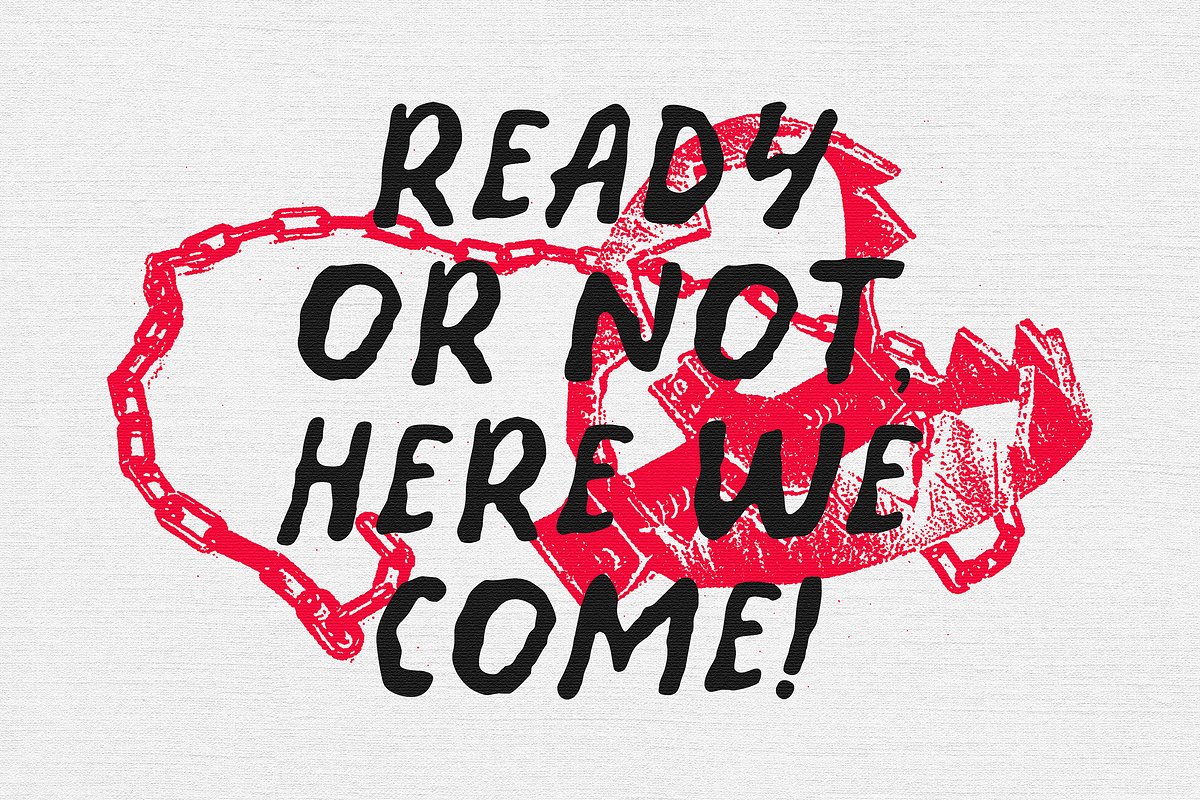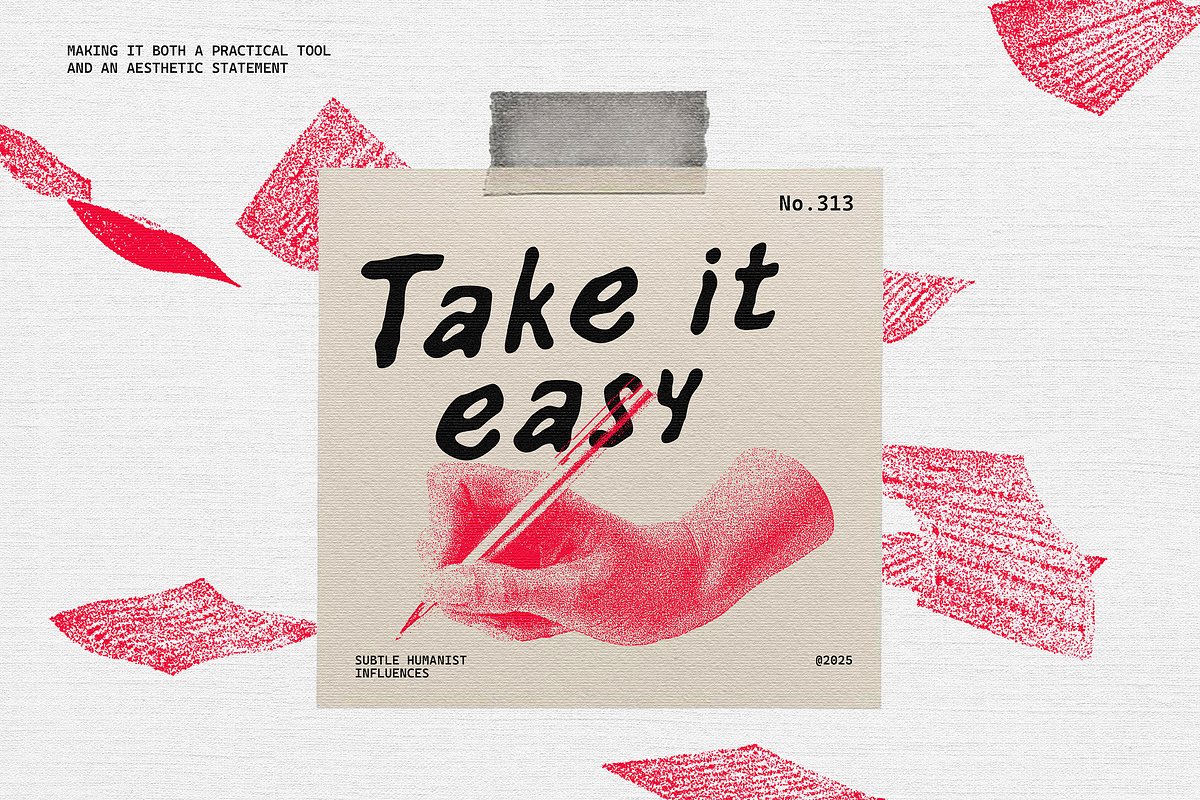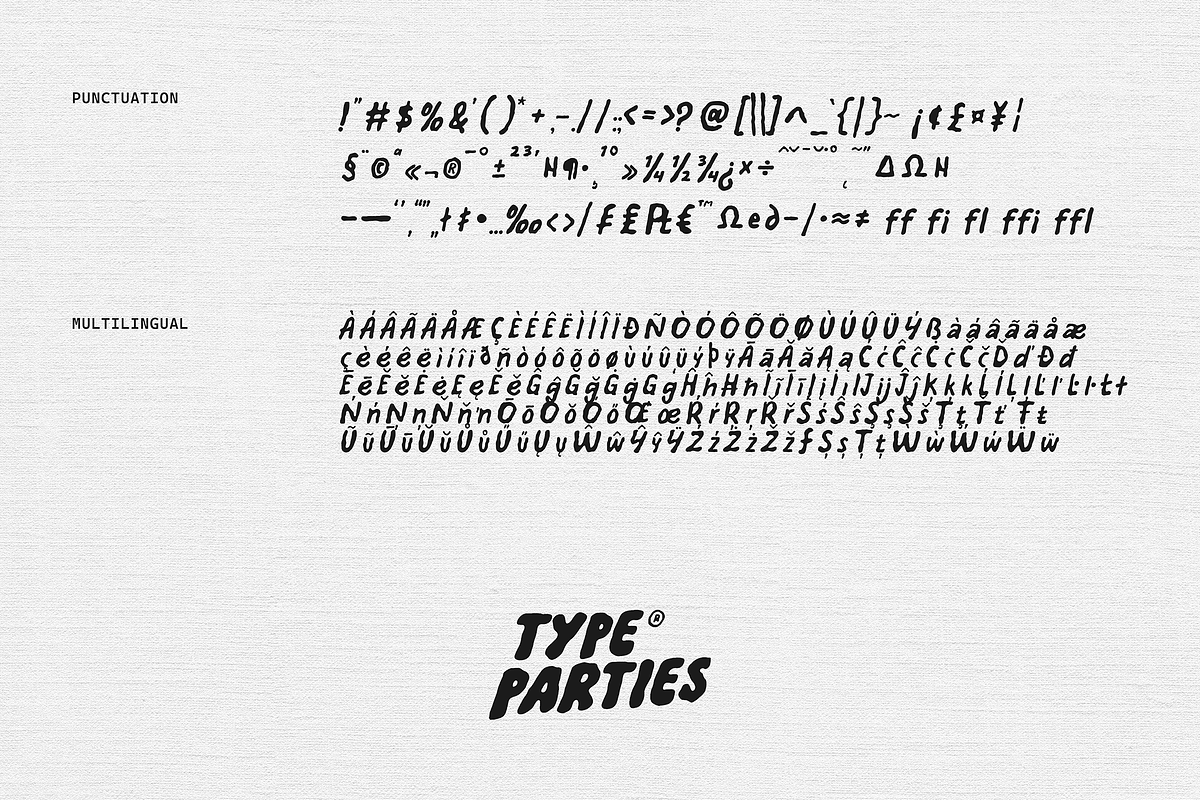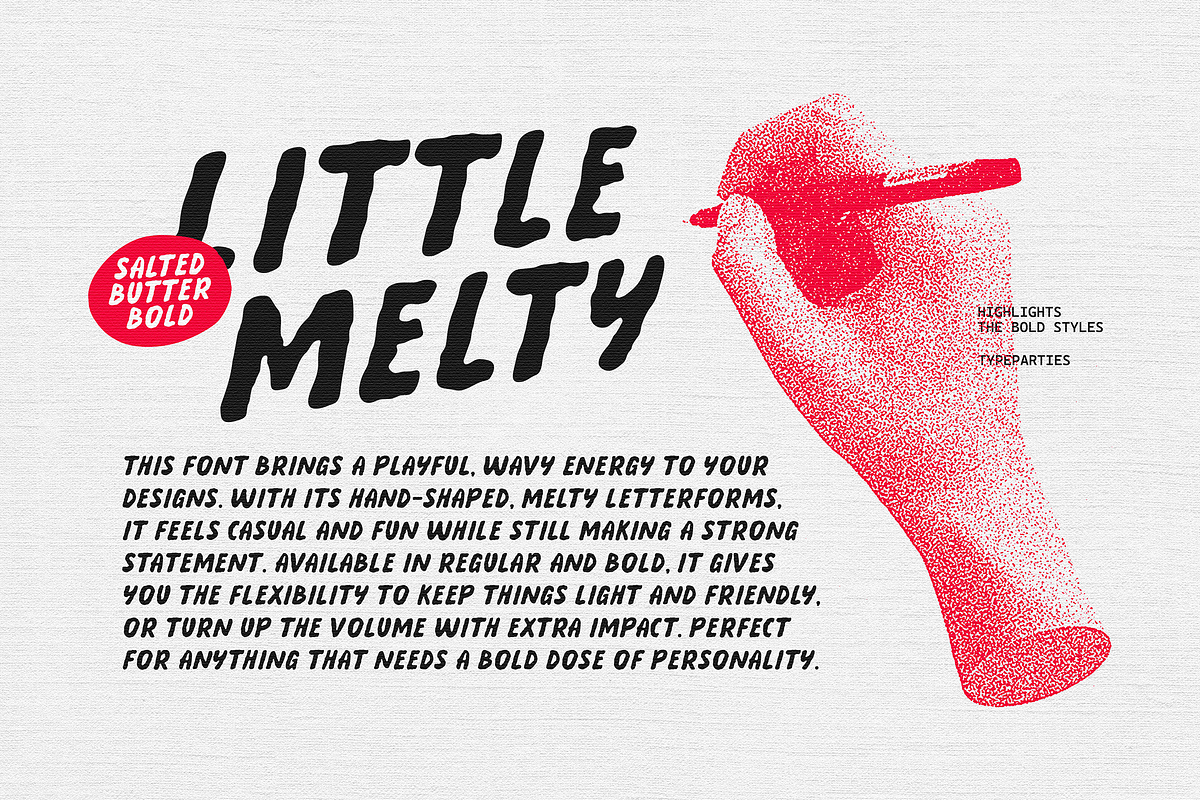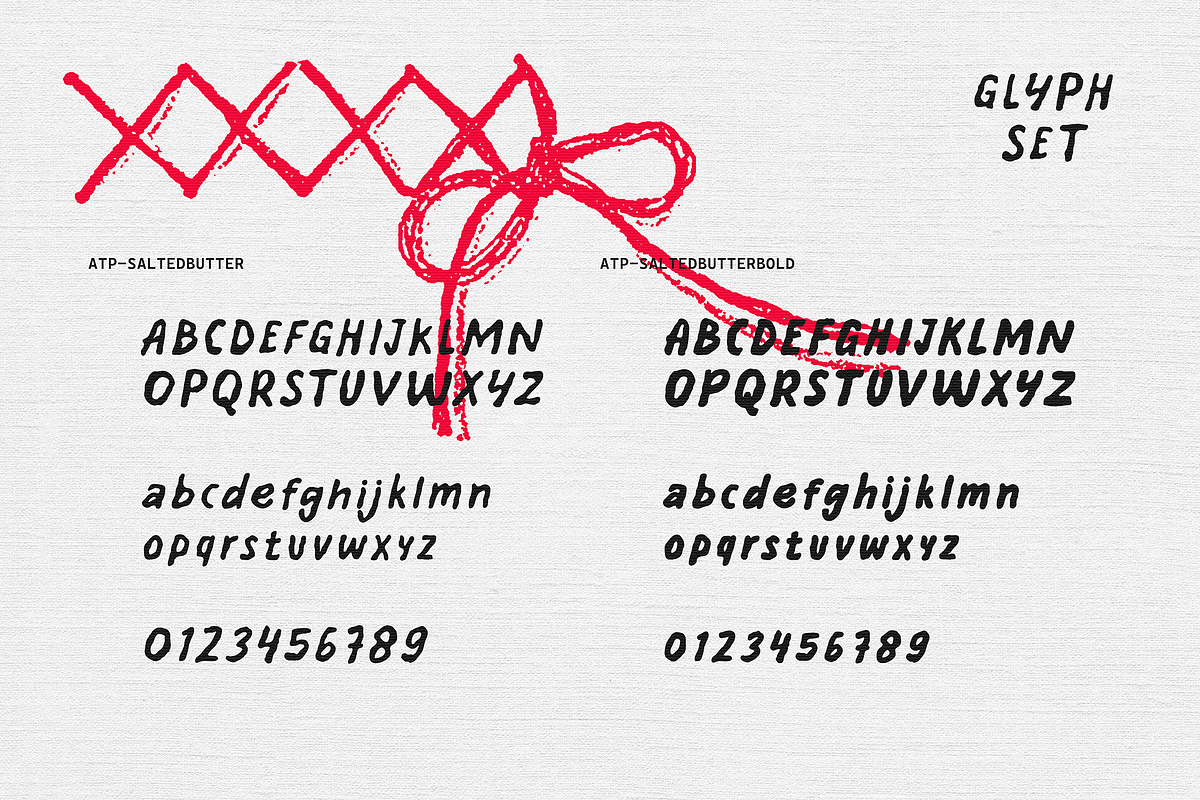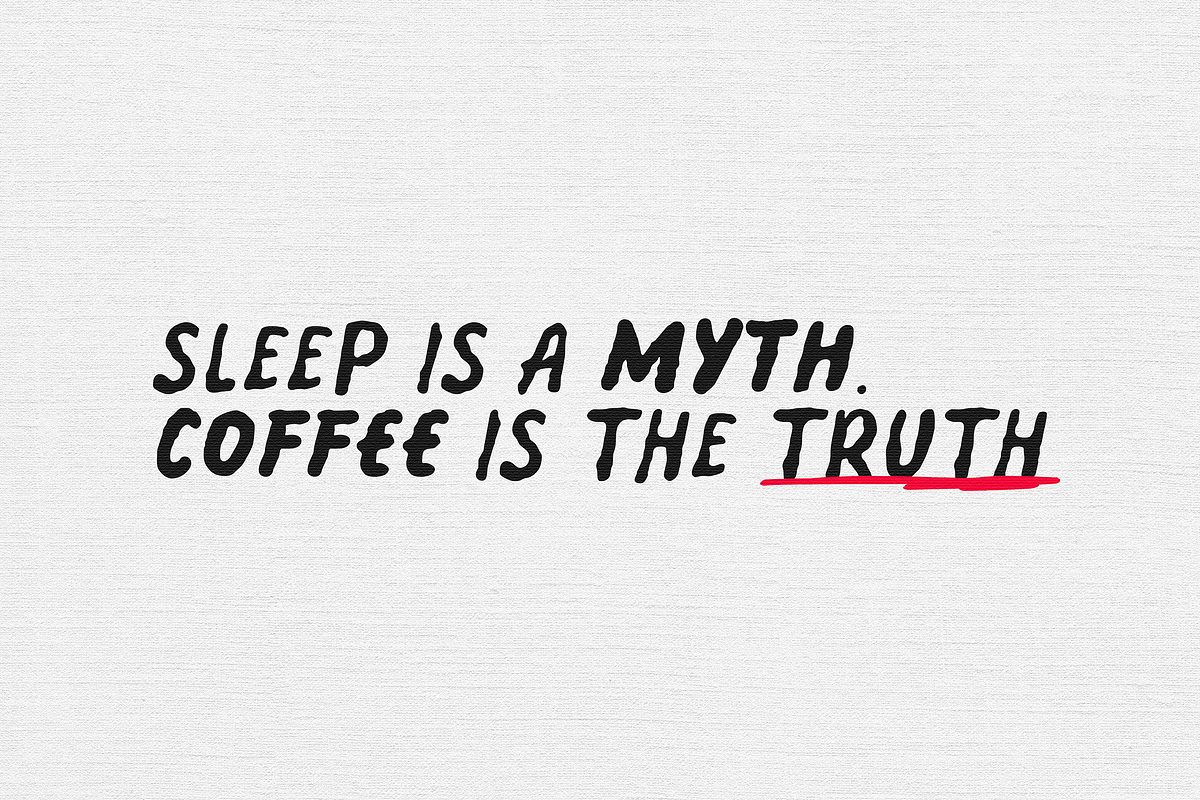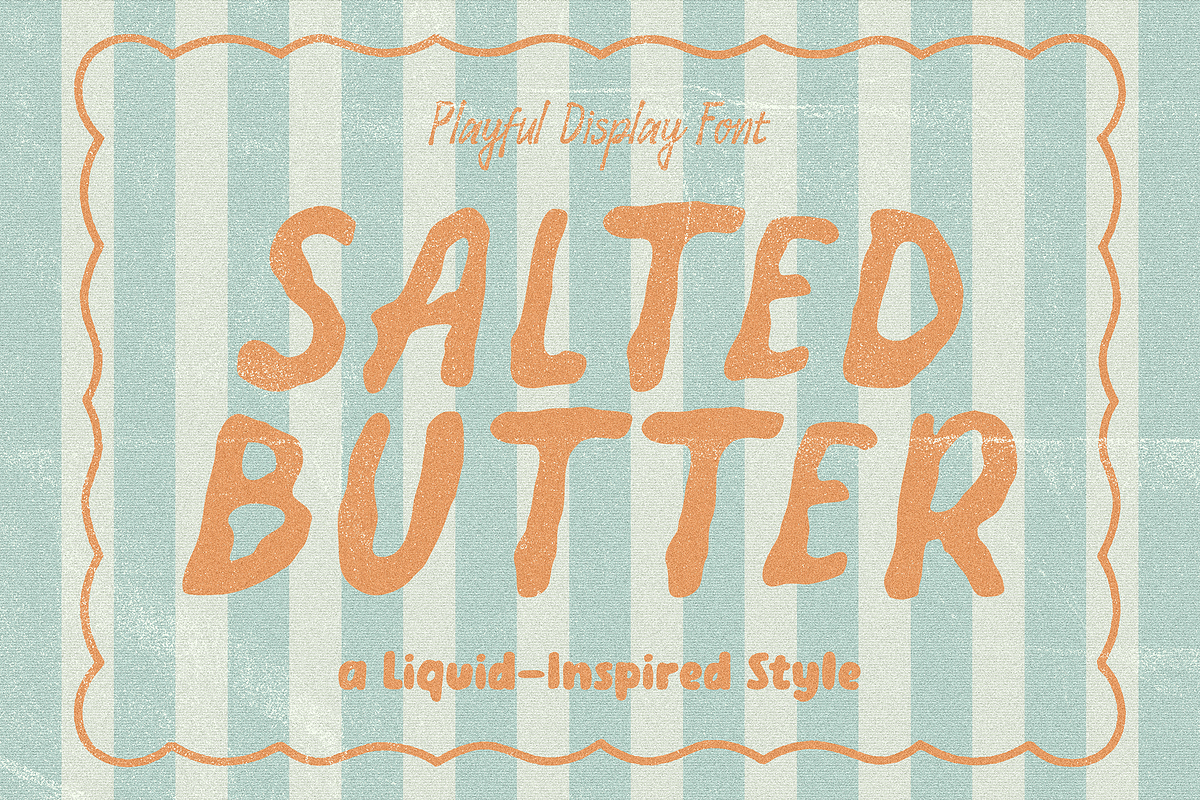
SaltedButter - Organic Brush Font
a contemporary display typeface that combines organic irregularity with modern visual impact. The font’s handcrafted, fluid letterforms resemble dynamic brush strokes, producing a playful yet expressive aesthetic. Its slightly distorted structure creates a sense of movement and spontaneity, making it ideal for designs that aim to communicate energy, creativity, and bold character.